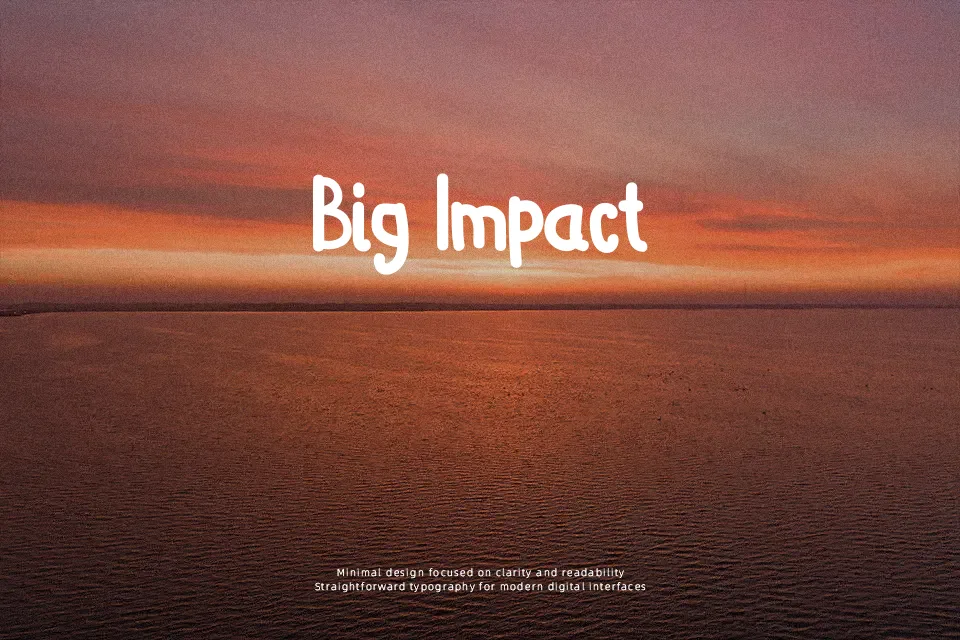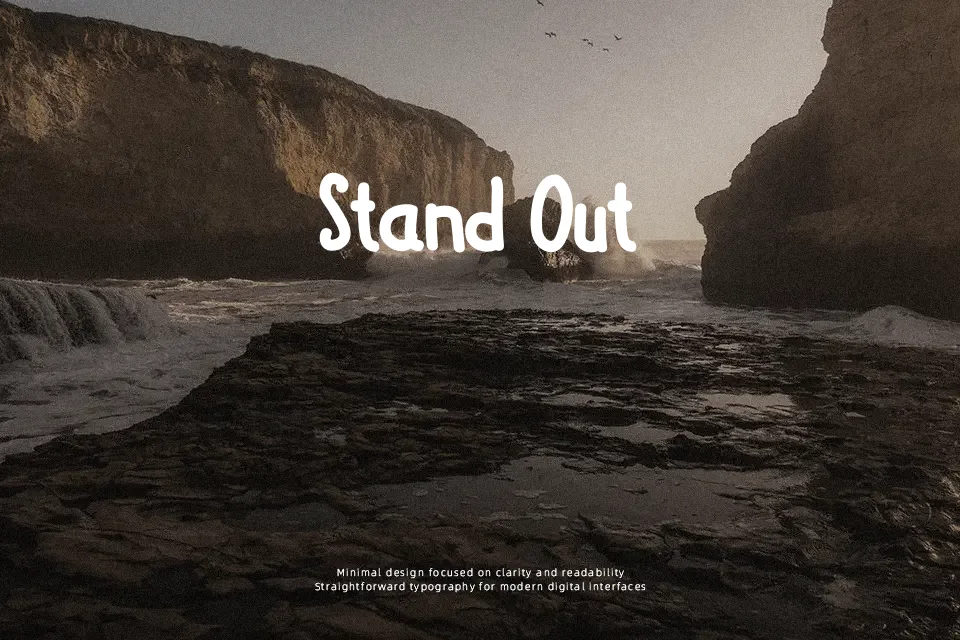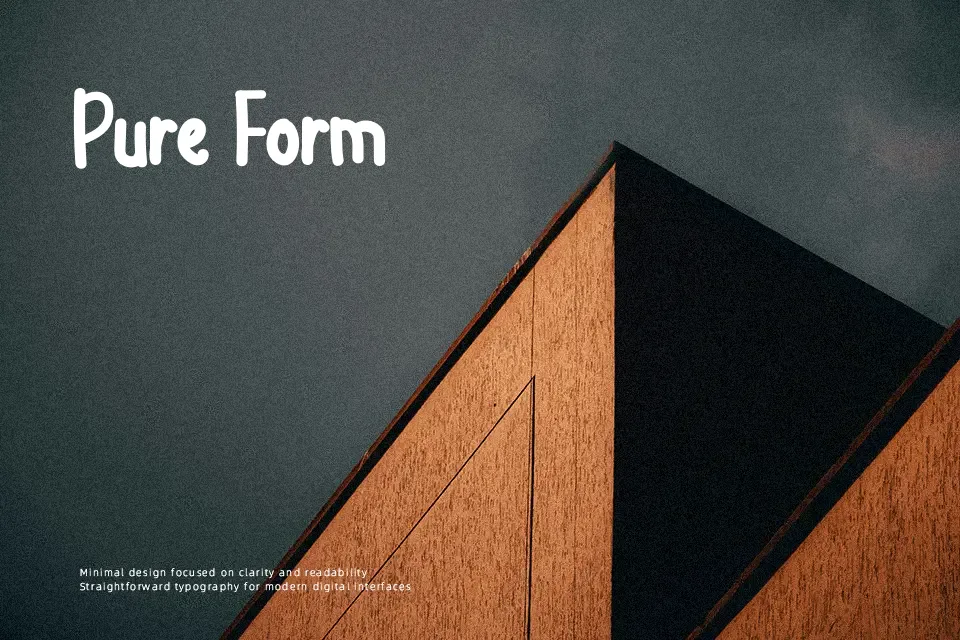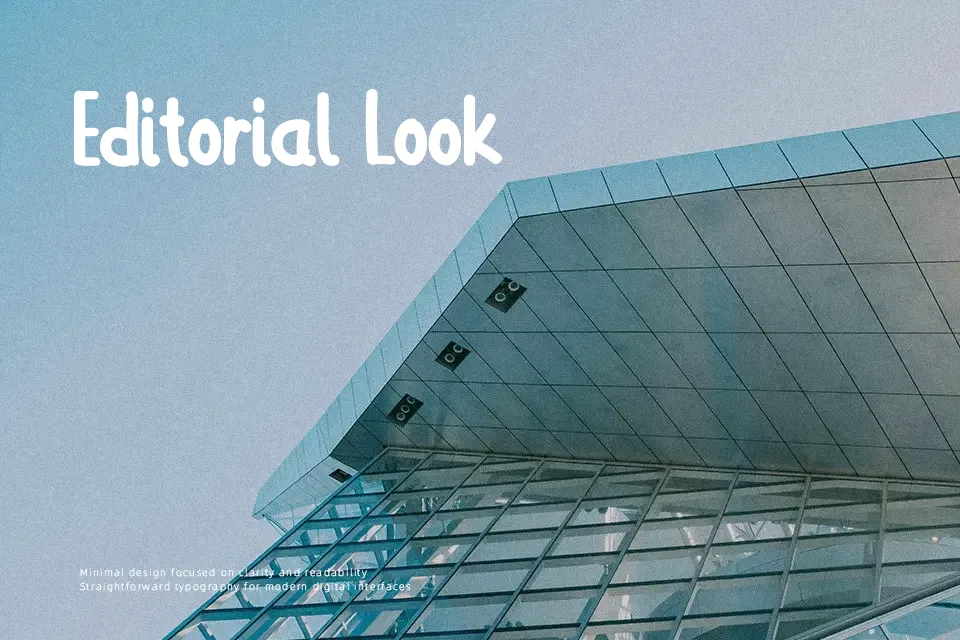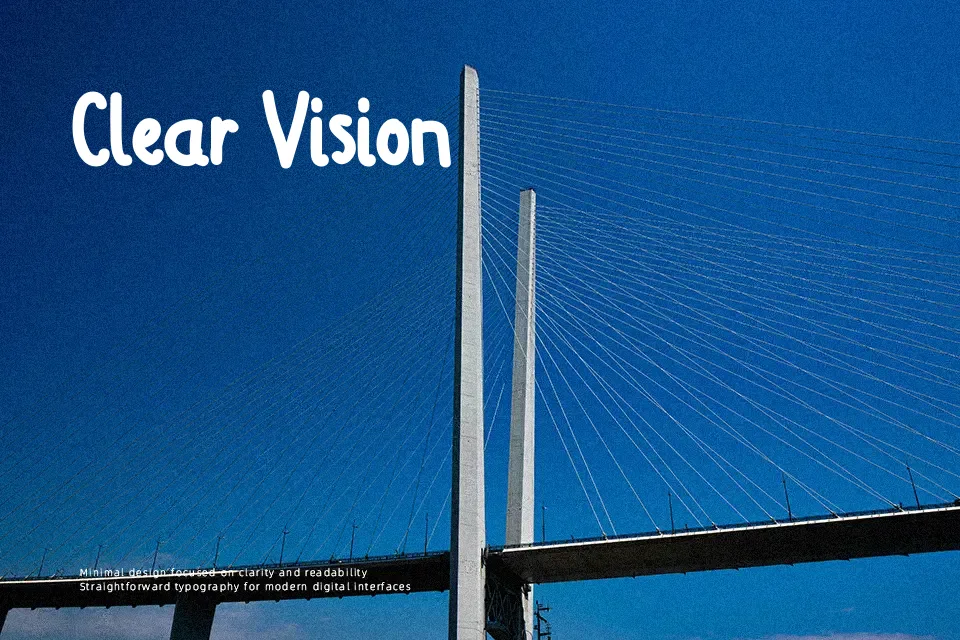
Cartoon Movie Font
Designed by Eddy Goodboy
Cartoon Movie Font presents thick, bulbous letterforms characterized by soft terminals, irregular geometry, and cheerful asymmetry. The substantial stroke weight creates intense visual weight, making headlines instantly noticeable across medium and large display formats. Generous interior counters prevent enclosed spaces from clogging, while tight letter spacing reinforces a cohesive, sticker-like appearance across short words. However, the exaggerated shapes and uneven baselines make continuous paragraph reading uncomfortable and disjointed. The typeface functions best when applied to isolated titles, event posters, or product labels where high-contrast silhouettes grab immediate attention without demanding sustained reading.
Best For: children’s book titles, animated video thumbnails, toy packaging, party banner headlines
Not Ideal For: long body text, corporate business documents, mobile app interface text, dense legal disclosures
Perfect for film, headline, and kids, with a bold and cartoon style.